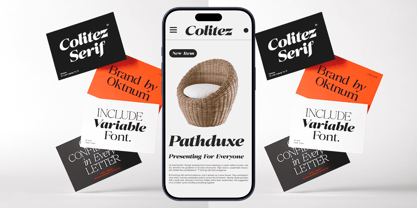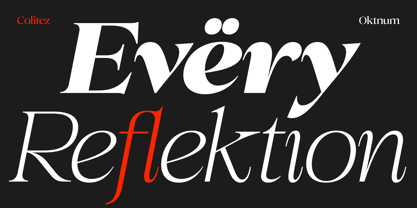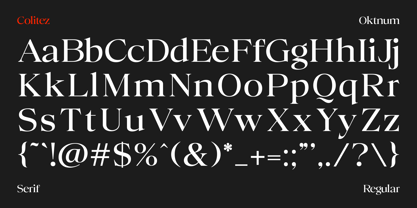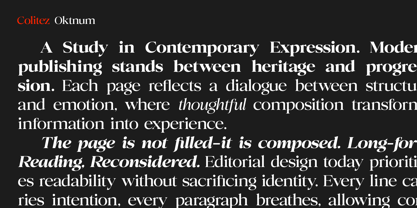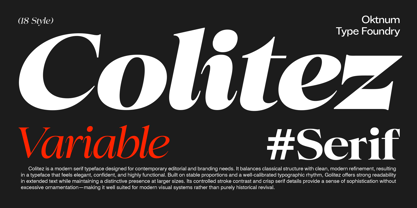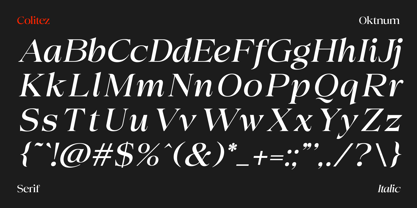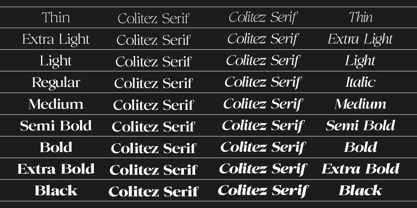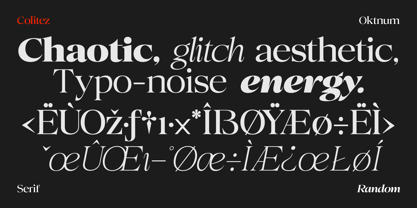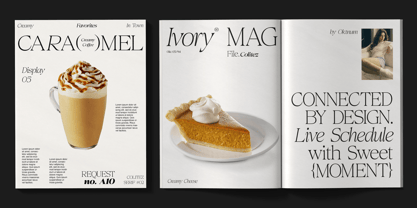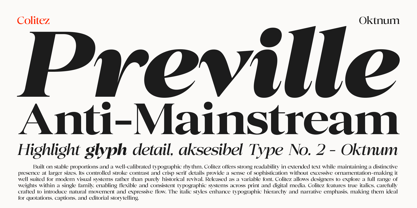
Colitez Serif
by Oktnum Type Foundry
The Colitez Serif Font Family was designed by Sarwo Edi and published by Oktnum Type Foundry. Colitez Serif contains 20 styles and family package options. More about this family
Colitez is a modern serif typeface with 18 Static Fonts + 2 Variable Fonts, expertly crafted for contemporary editorial and branding applications. It harmoniously blends classical structure with clean, modern refinement, resulting in a typeface that exudes elegance, confidence, and functionality. Built on stable proportions and a well-calibrated typographic rhythm, Colitez ensures strong readability in extended text while maintaining a distinctive presence at larger sizes. Its controlled stroke contrast and crisp serif details impart sophistication without excessive ornamentation, making it ideal for modern visual systems rather than purely historical revivals. Colitez features beautifully designed italics that introduce natural movement and expressive flow. These italic styles enhance typographic hierarchy and narrative emphasis, making them perfect for quotations, captions, and editorial storytelling. Released as a variable font, Colitez empowers designers to explore a comprehensive range of weights within a single family, facilitating flexible and consistent typographic systems across both print and digital media.